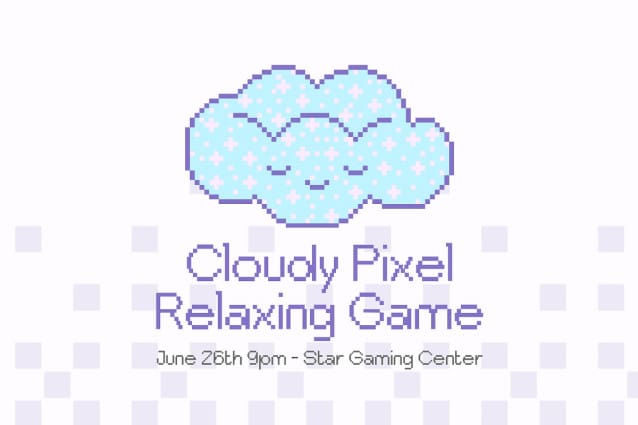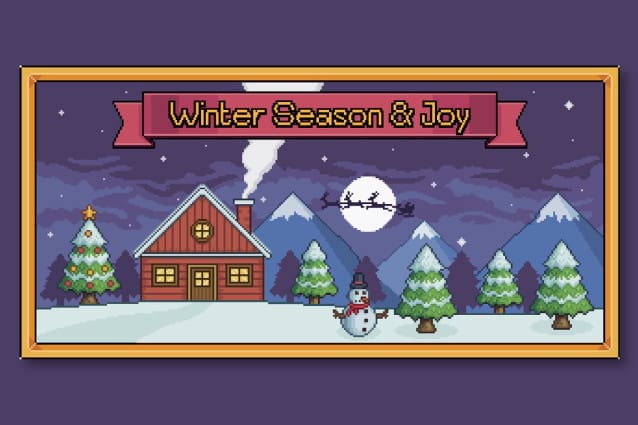
Bitend Pixel Font
Bitend Pixel Font is a Geometric, edgy pixel Y2K font that combines nostalgic 80s and 2000s styles, perfect for bold, retro-inspired designs. These versatile fonts, ideal for headlines, logos, pixel games, 8-bit game interfaces, and editorial use, bring a playful yet impactful touch to any project.
Bitend Pixel Font, offering multiple styles and multilingual support, elevate your digital and print creations with a unique vintage flair. This font works in large and small sizes and includes two styles: normal and monospaced.